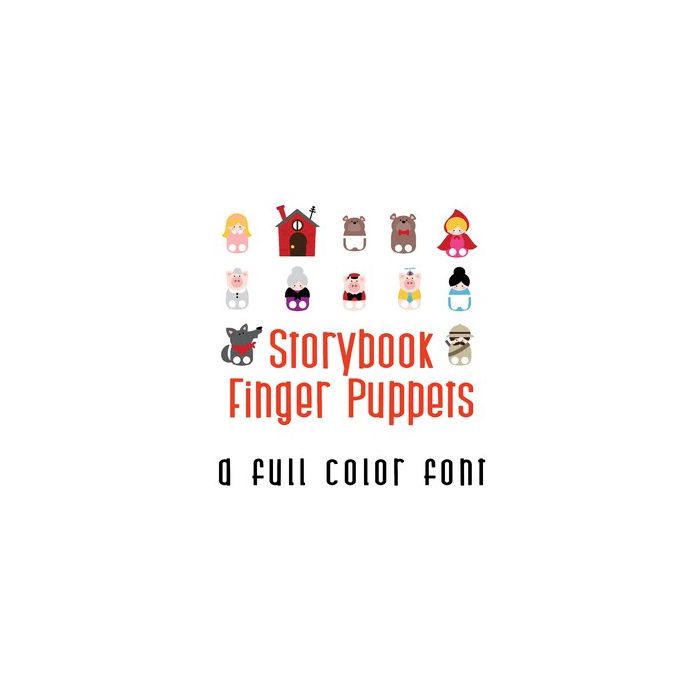
This adorable full-color doodlebat font features 28 adorable fairytail finger puppets. Perfect for cards, crafts, gifts, decor, scrapbook pages, planner stickers, and more! Glphys are A-Z and 0,1.